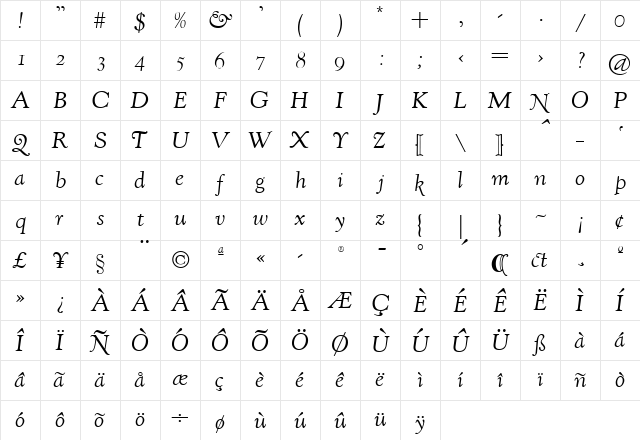
KennerlyH-Italic Italic
| Foundry | Lanston Type Co. Ltd |
Design Context for KennerlyH-Italic Typeface
KennerlyH-Italic offers clean, dependable letterforms without strong stylistic allegiance, making it a practical choice for designers who need flexibility. Its italic angle brings a sense of urgency and motion to the letterforms.
Pro Tip: Try KennerlyH-Italic for annotation and caption copy alongside an upright companion — the contrast in angle creates a dynamic but ordered typographic system.